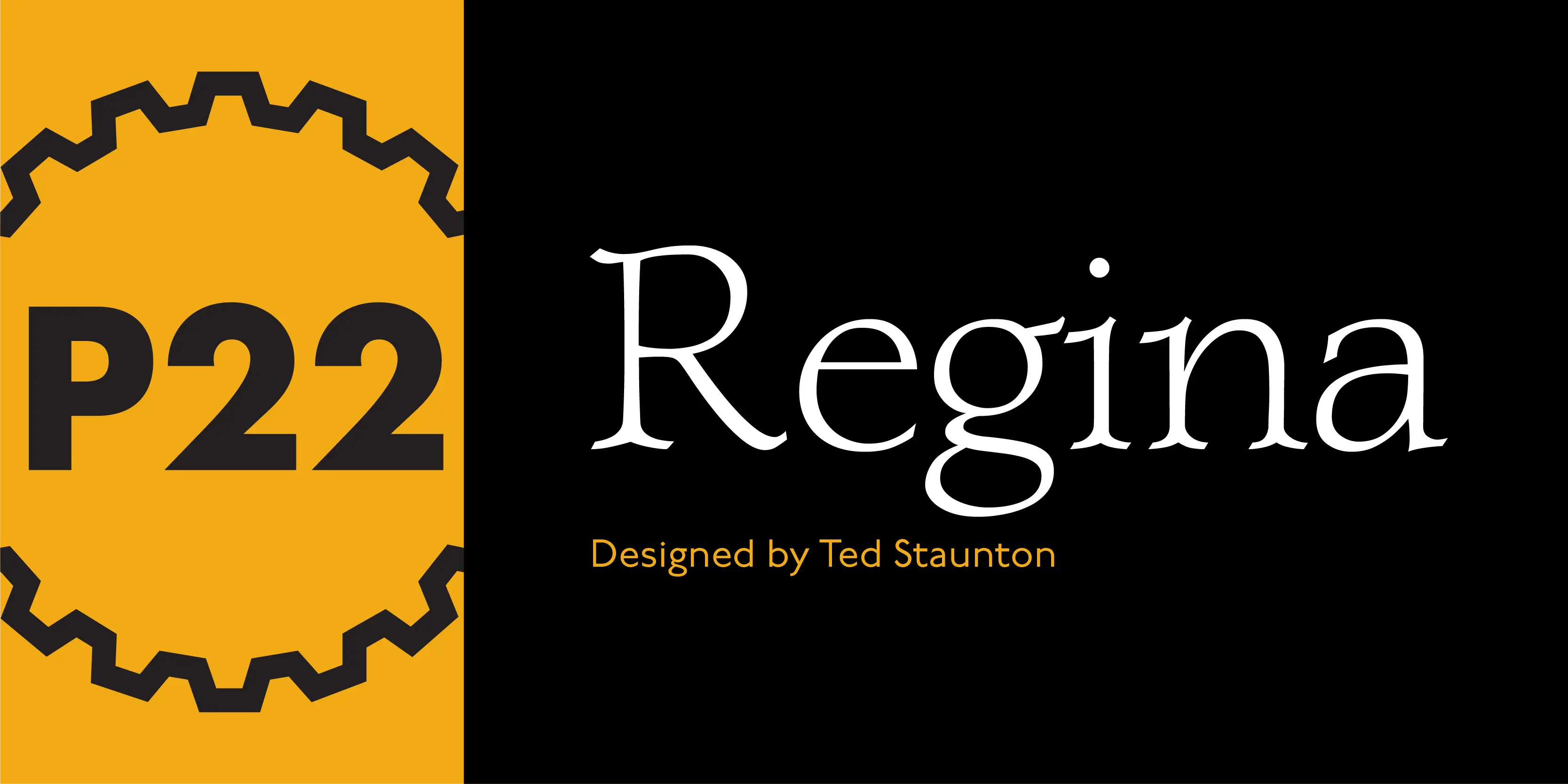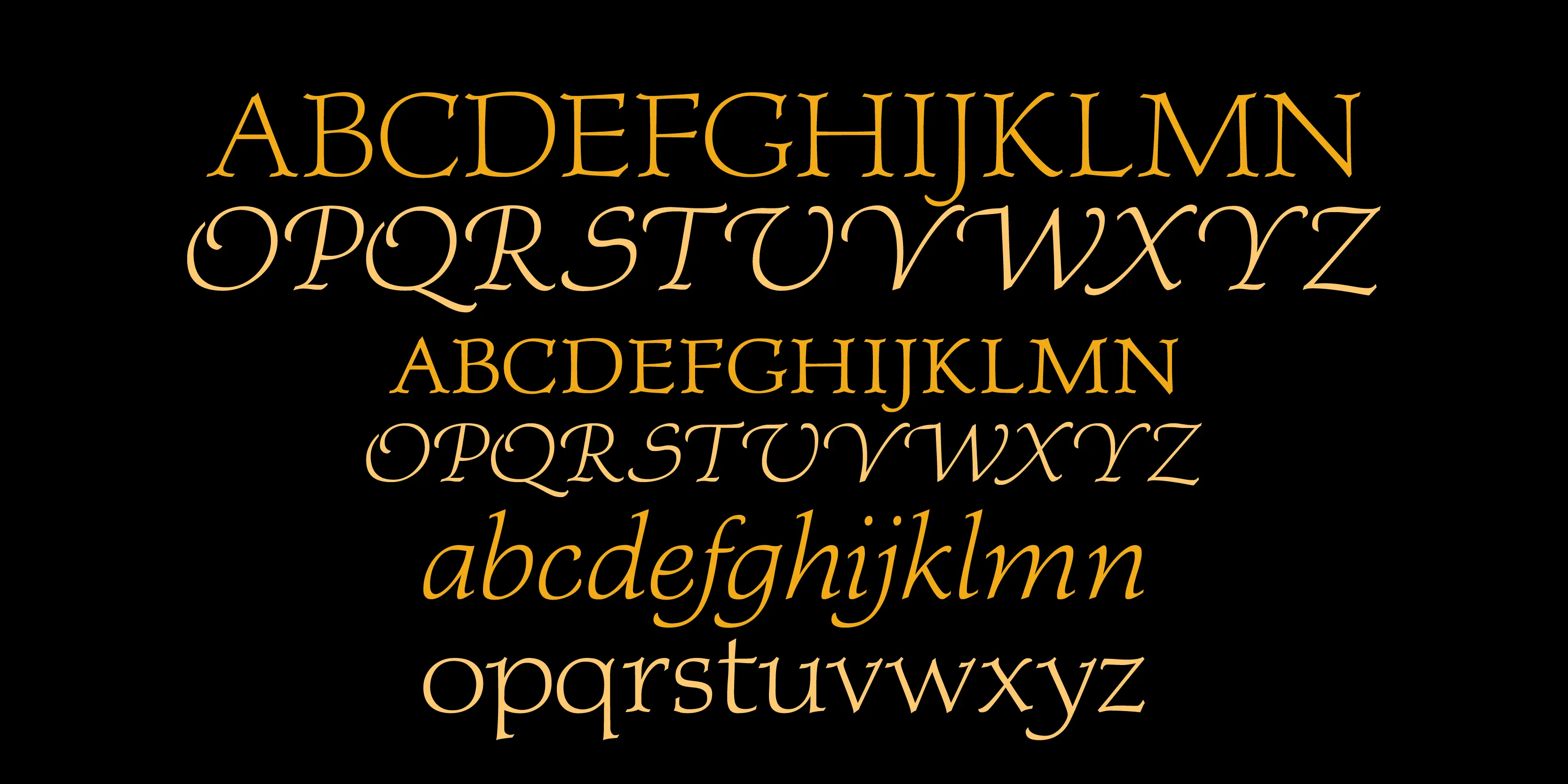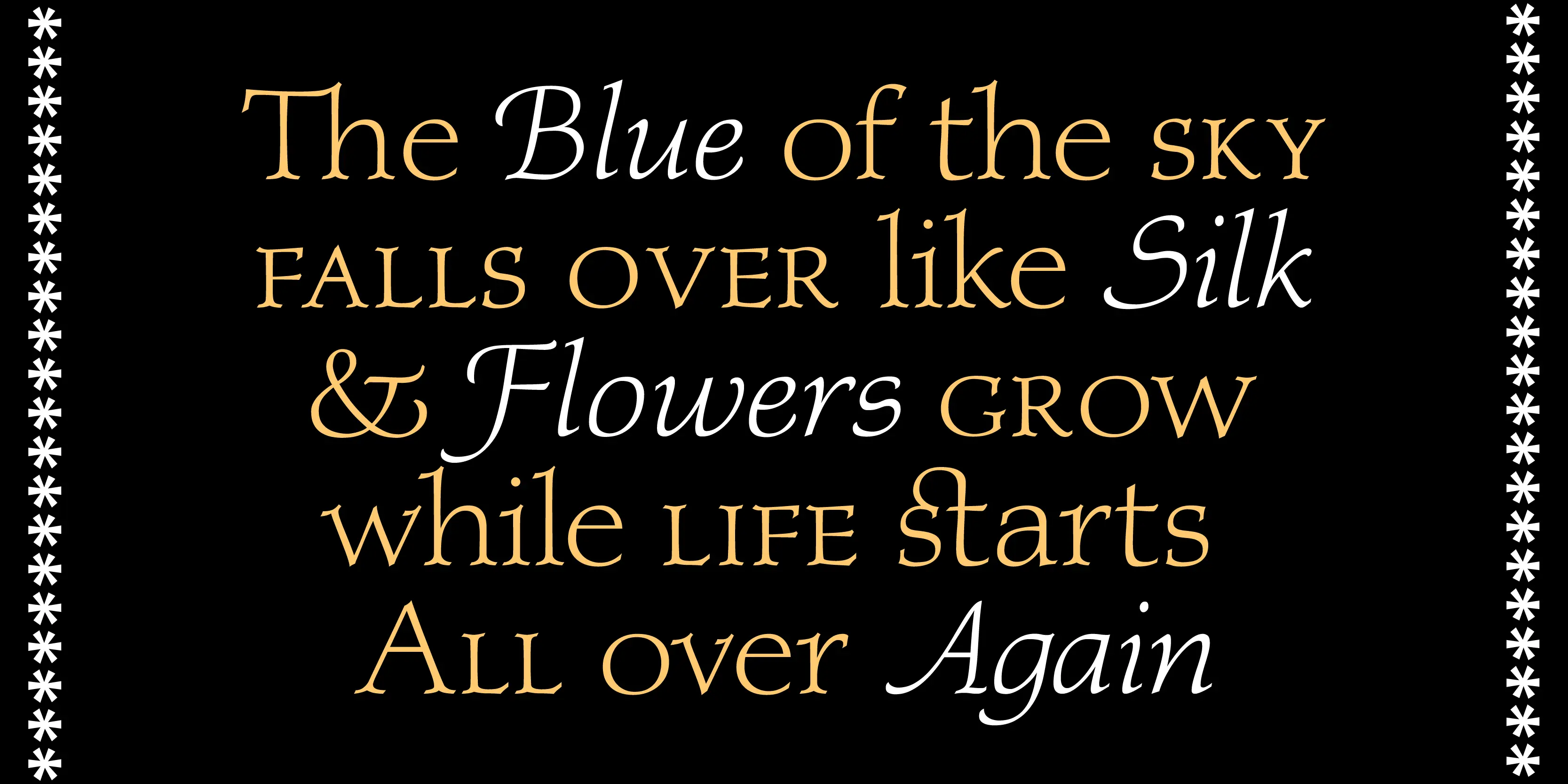
Regina Font Family
Regina
Regina is a calligraphic-influenced hybrid light-face Tuscan-serif roman with a companion swash italic.
• Old Style Numerals
• Small Capitals